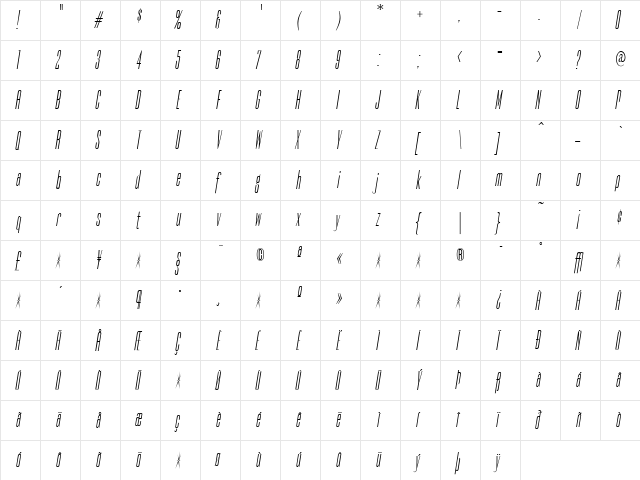
Empire Italic
Design Context for Empire Typeface
Empire takes a measured approach to typography — its balanced proportions and neutral character make it a reliable workhorse for both digital and print work. Its italic angle brings a sense of urgency and motion to the letterforms.
Pro Tip: Use Empire for emphasis, pull quotes, and subheadings where its slanted energy can add rhythm to the layout.